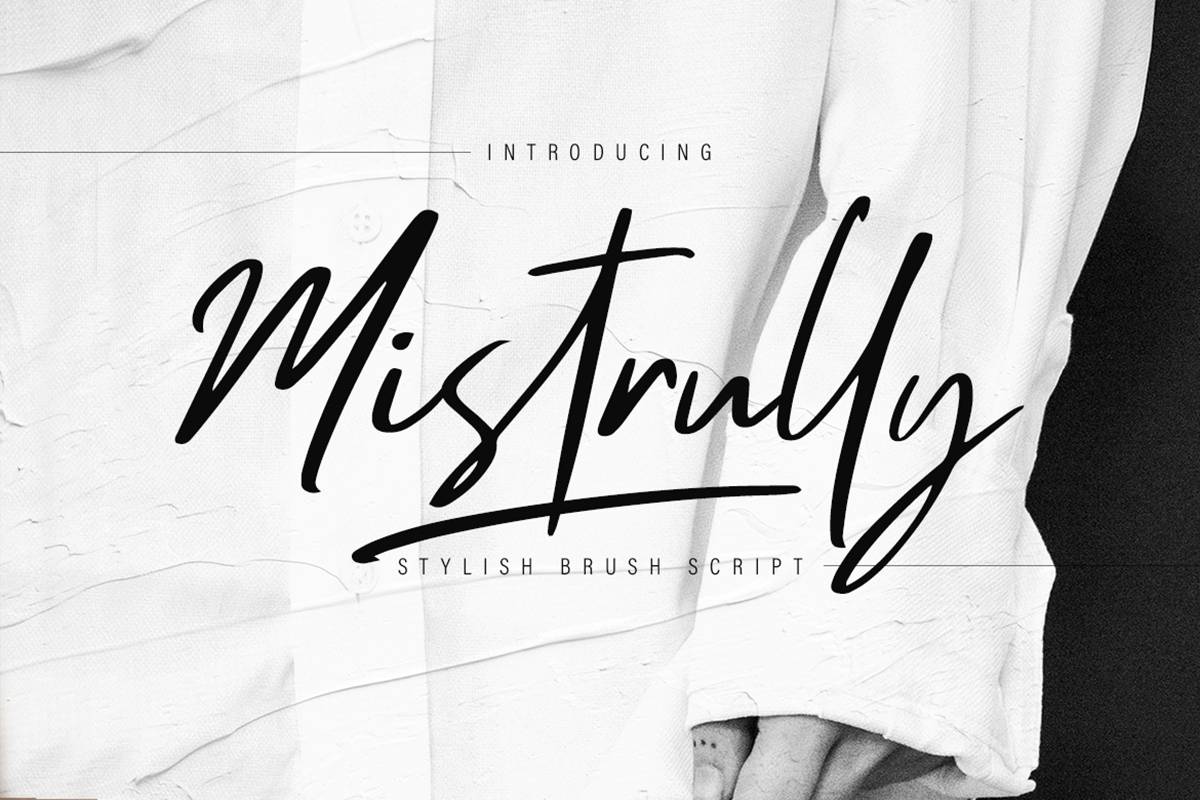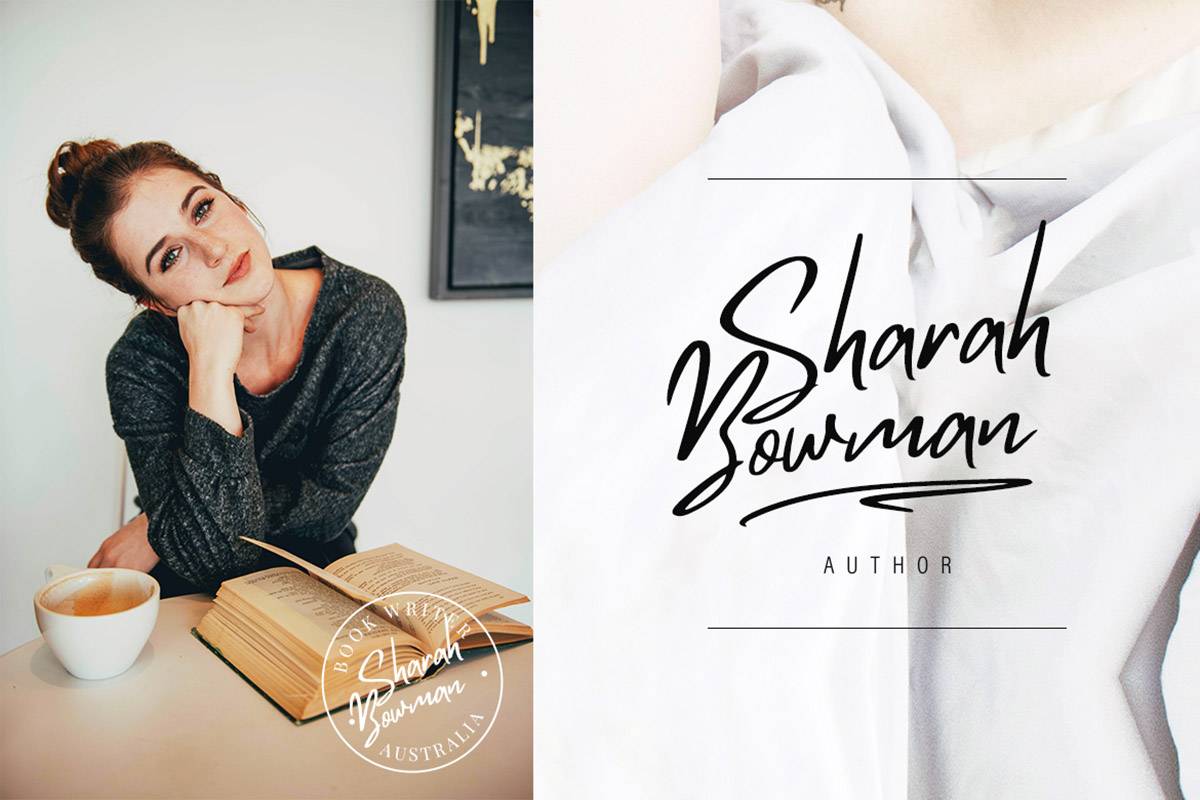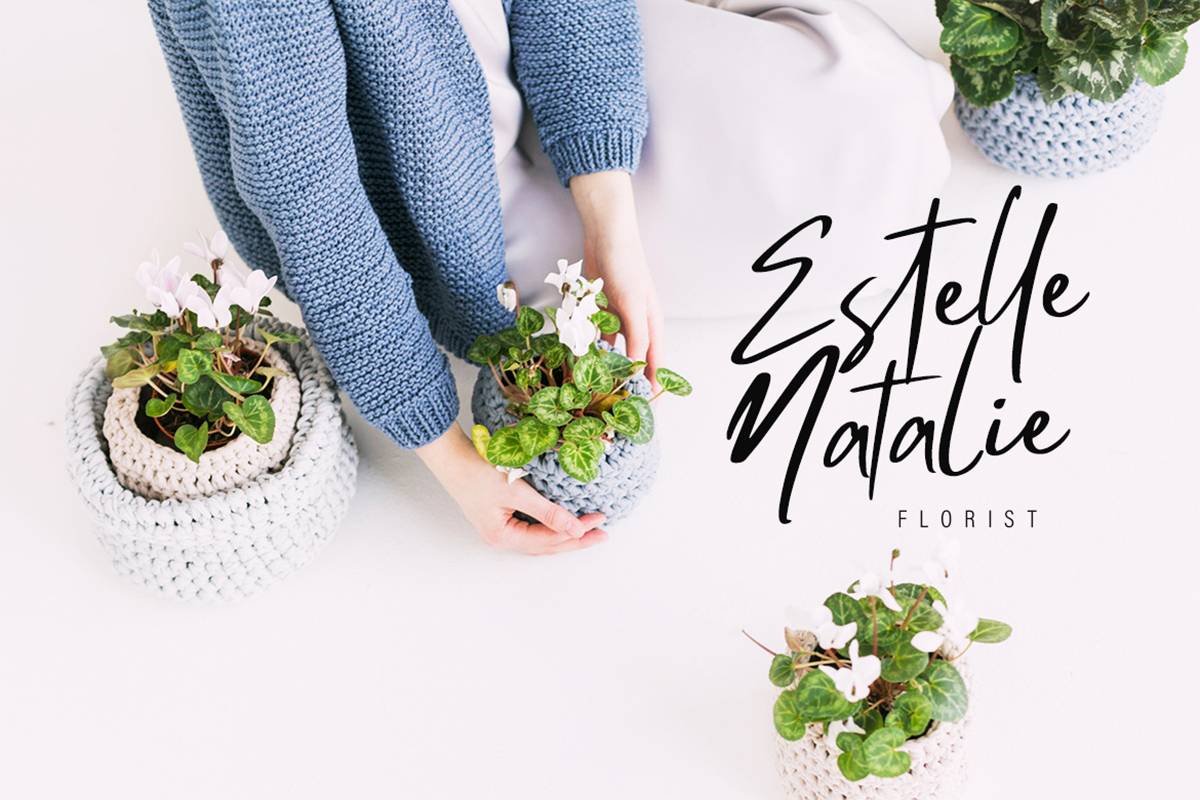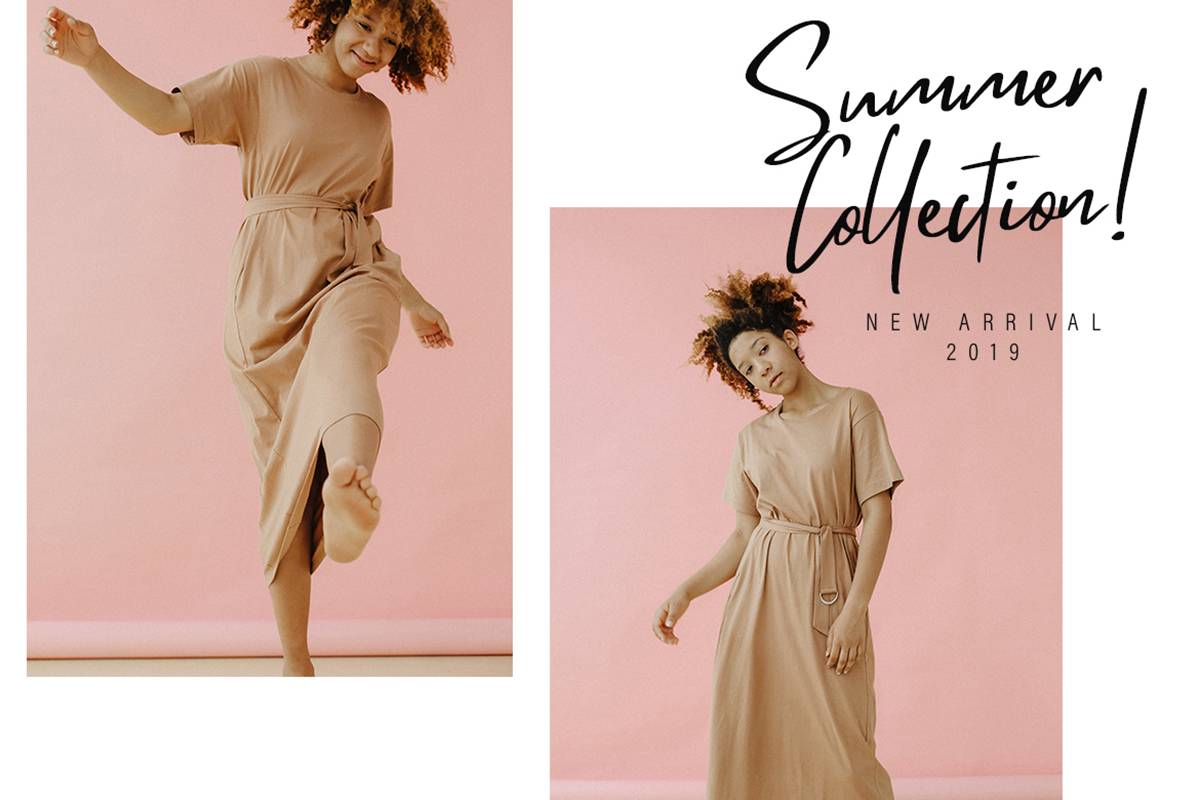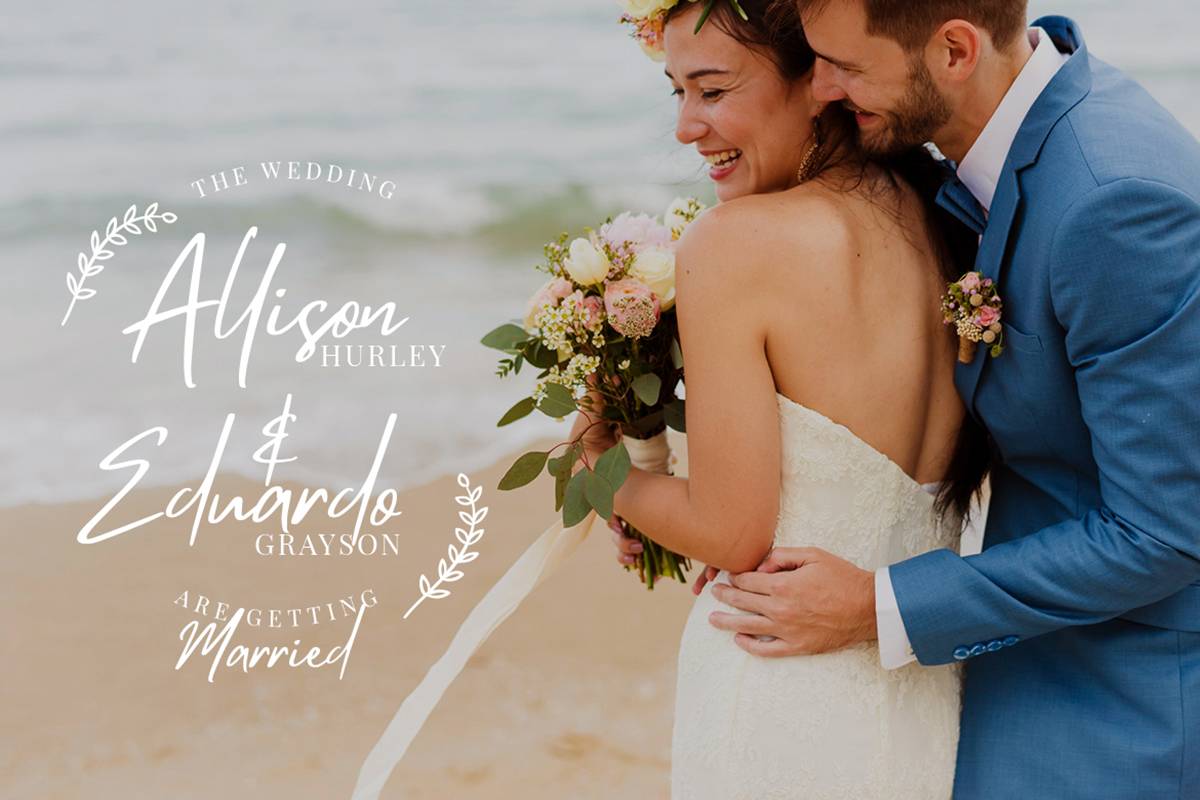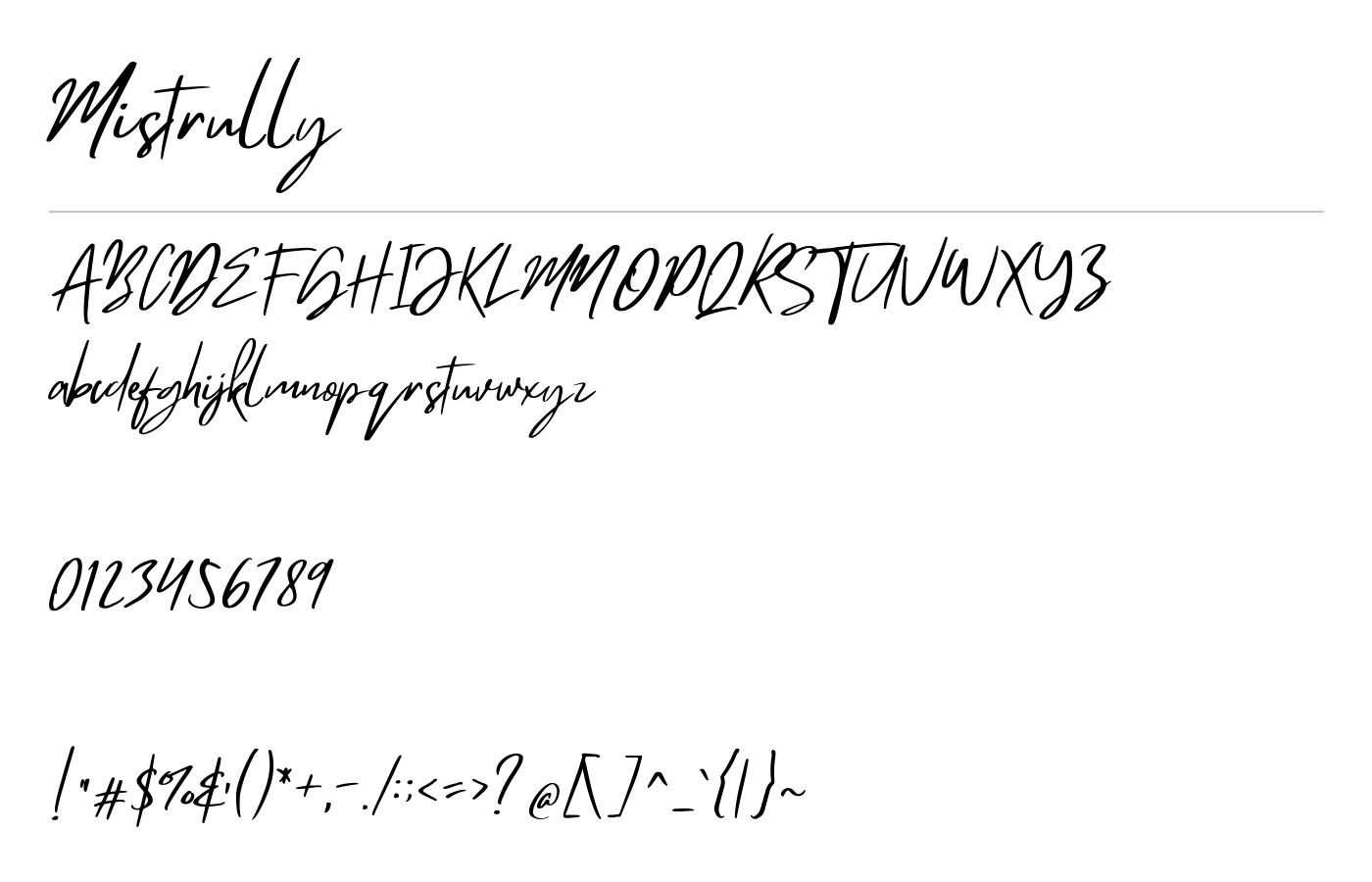
Mistrully is a lively handwritten script font that combines elegance with a casual, modern flair. Its tall, narrow letterforms and varying stroke widths give it a dynamic, personal touch, making it perfect for creative branding, invitations, and stylish social media graphics. This font works well wherever a fresh, authentic, and artistic feel is desired.
Mistrully Font
About Mistrully Font